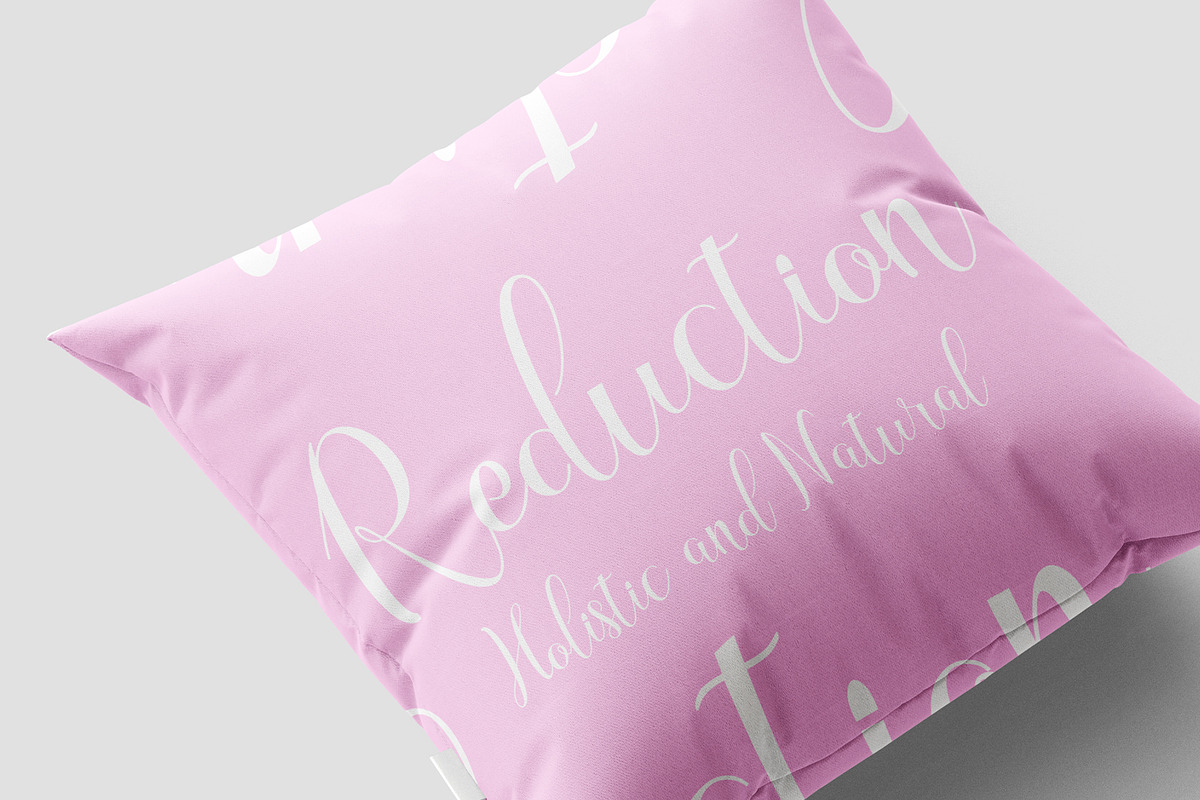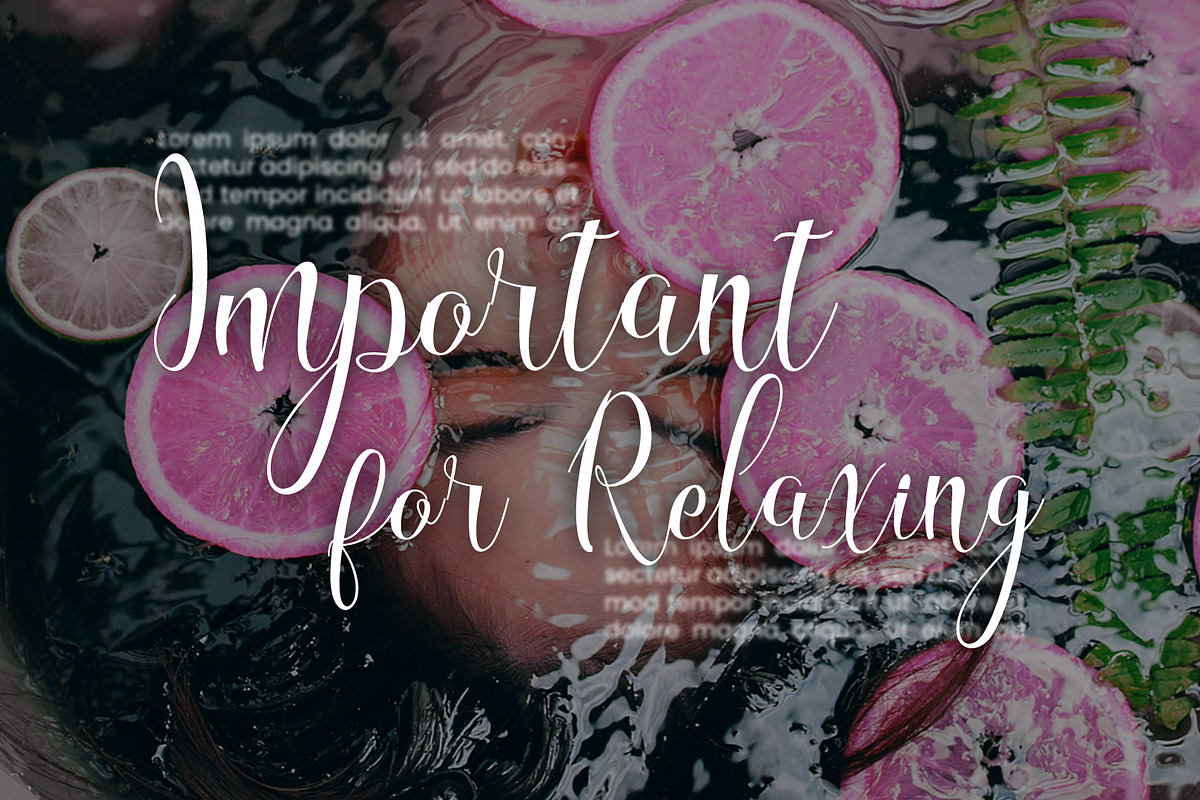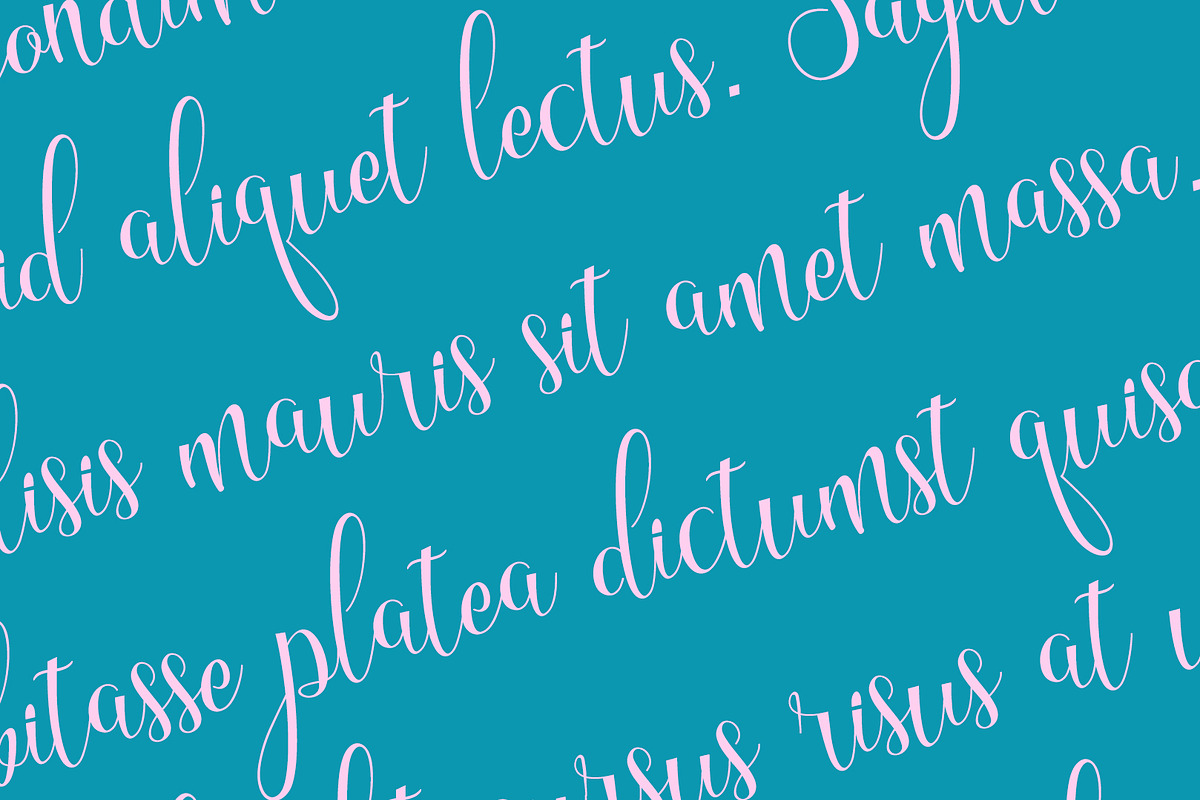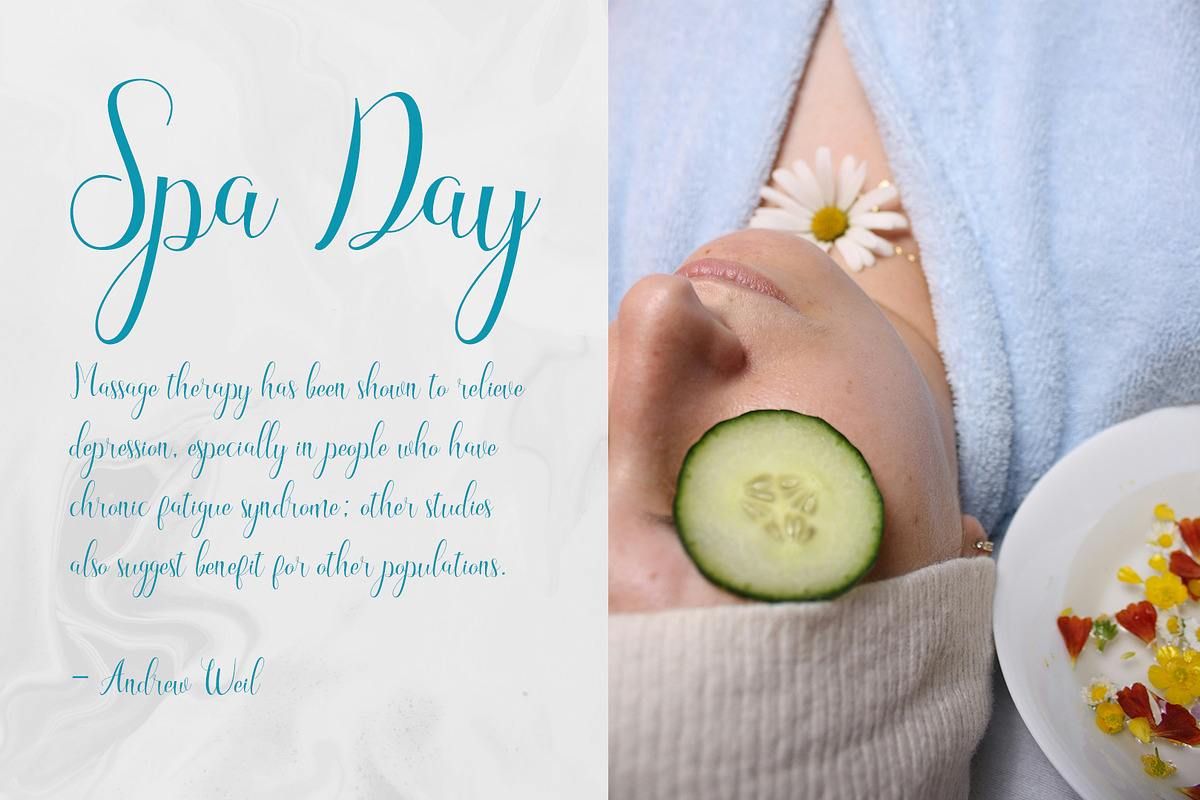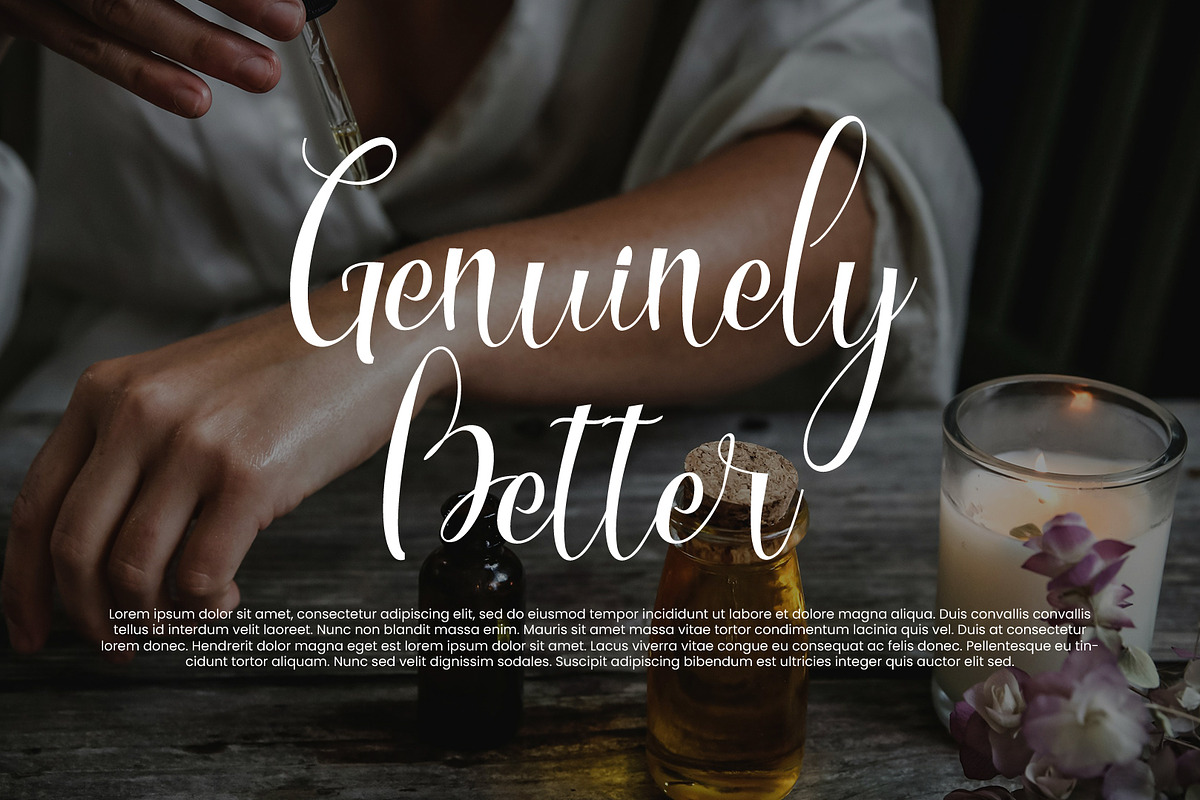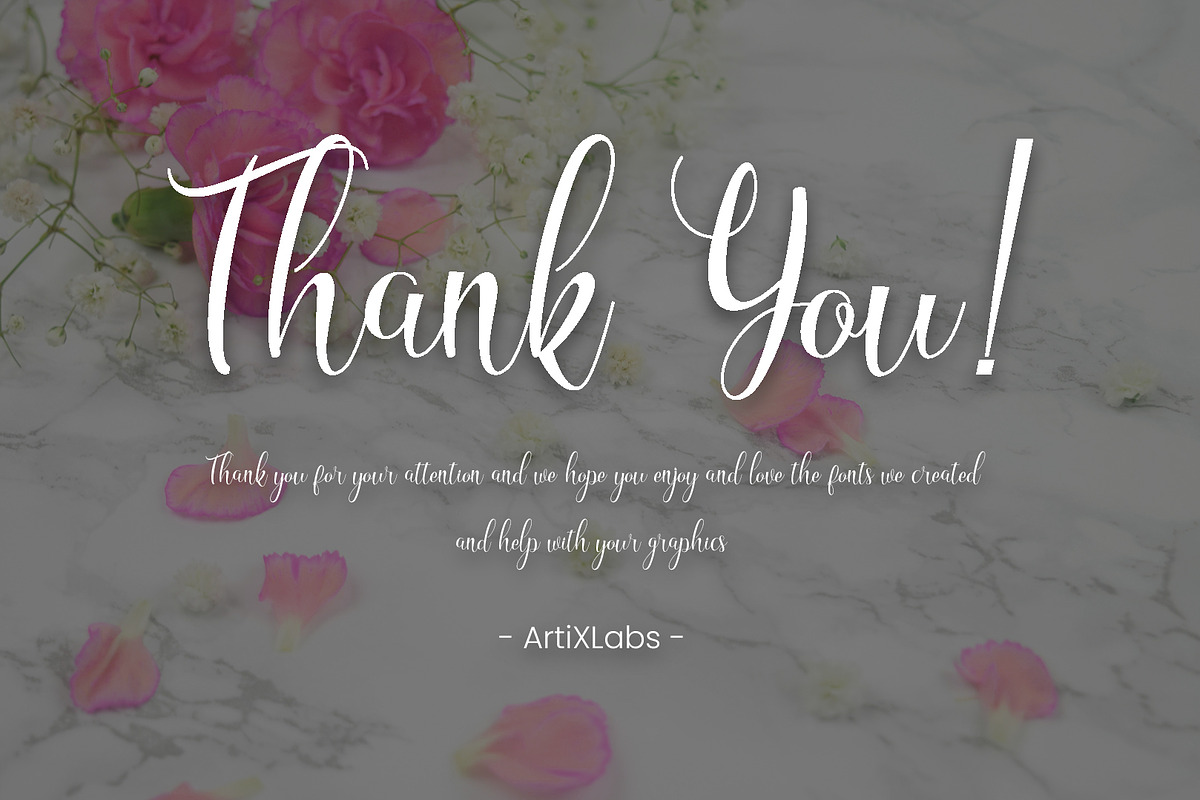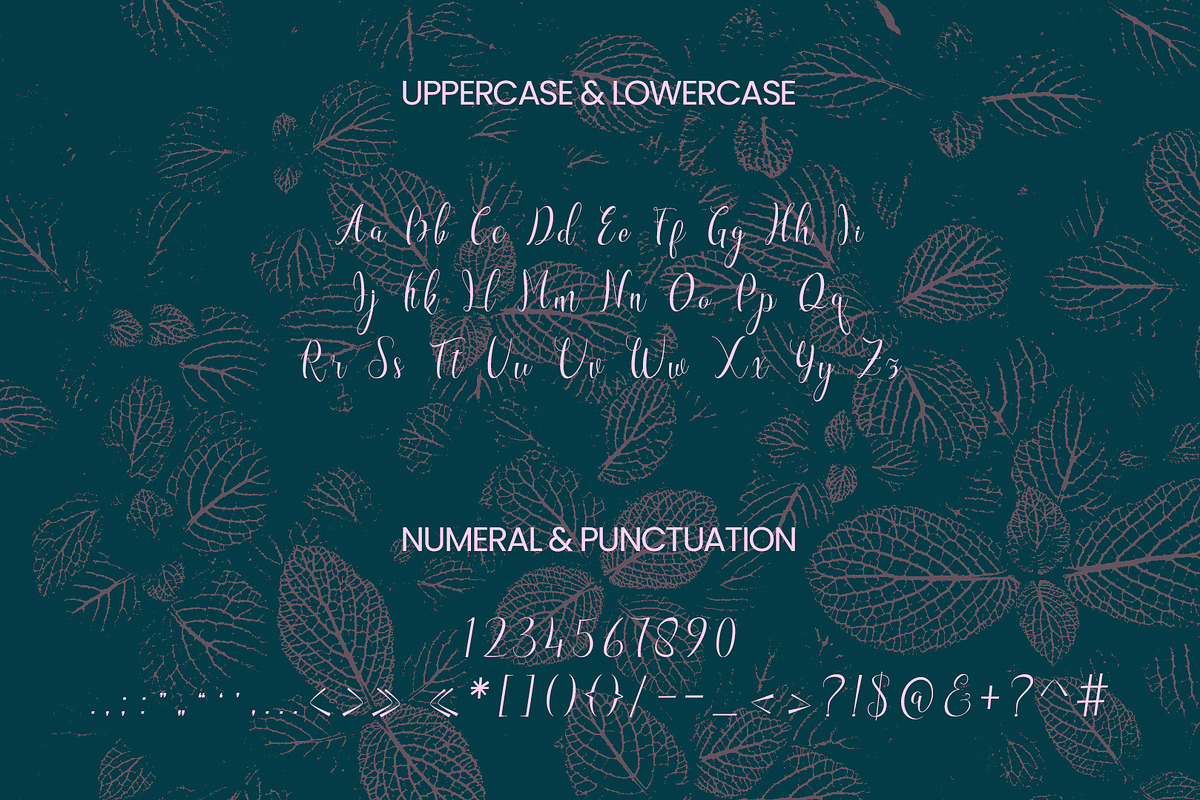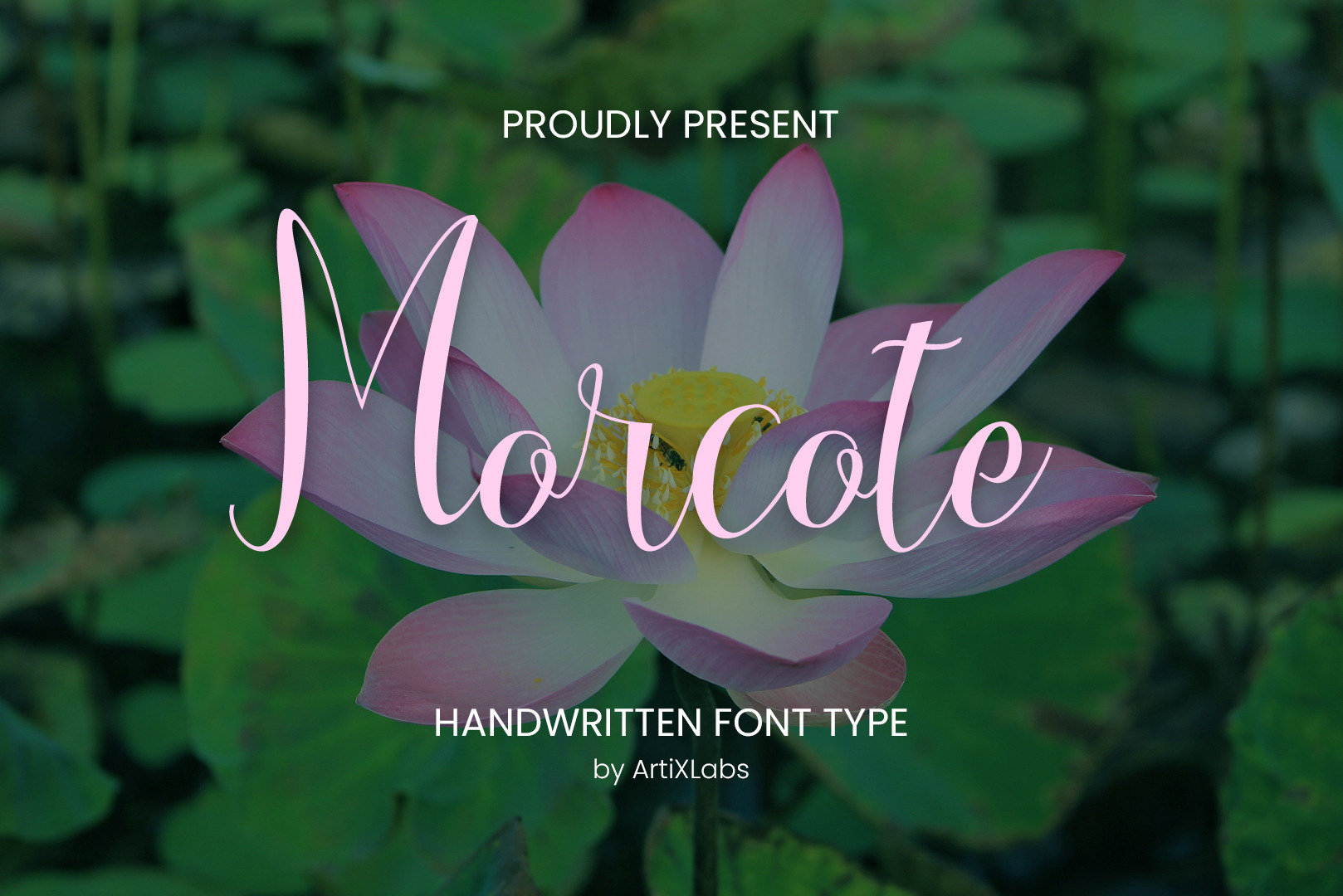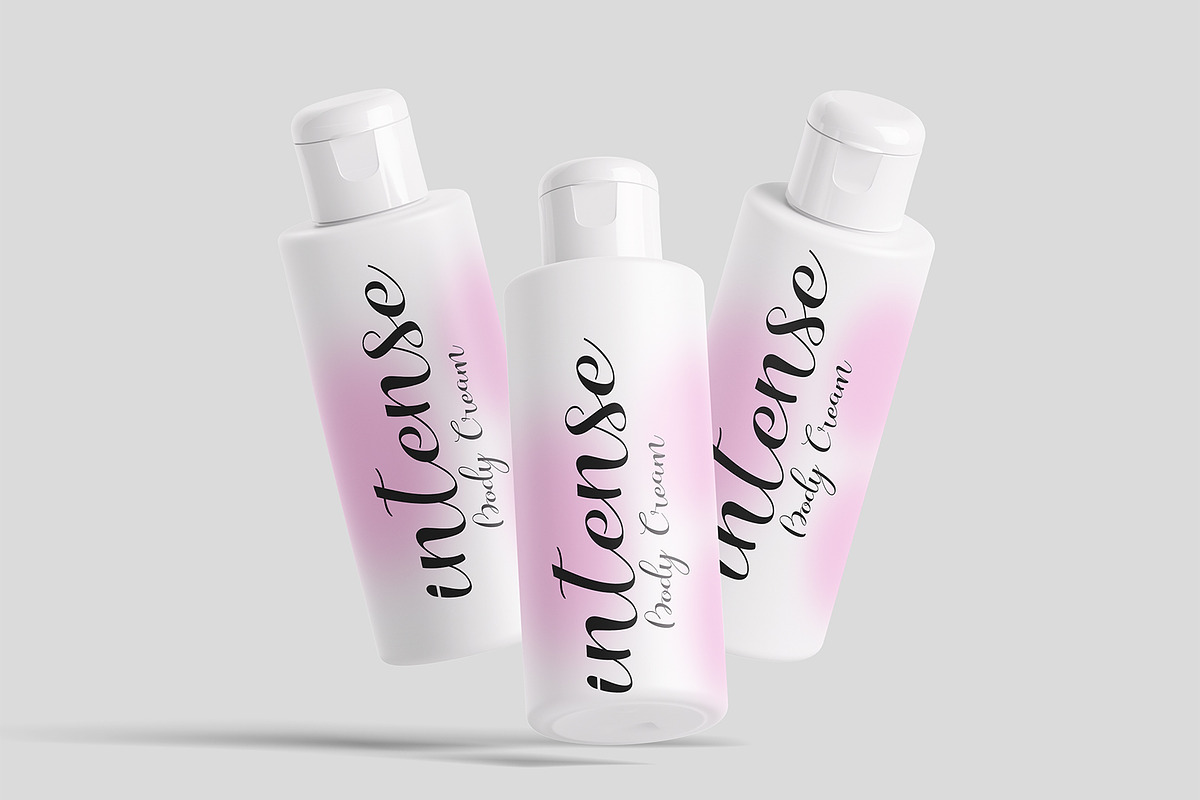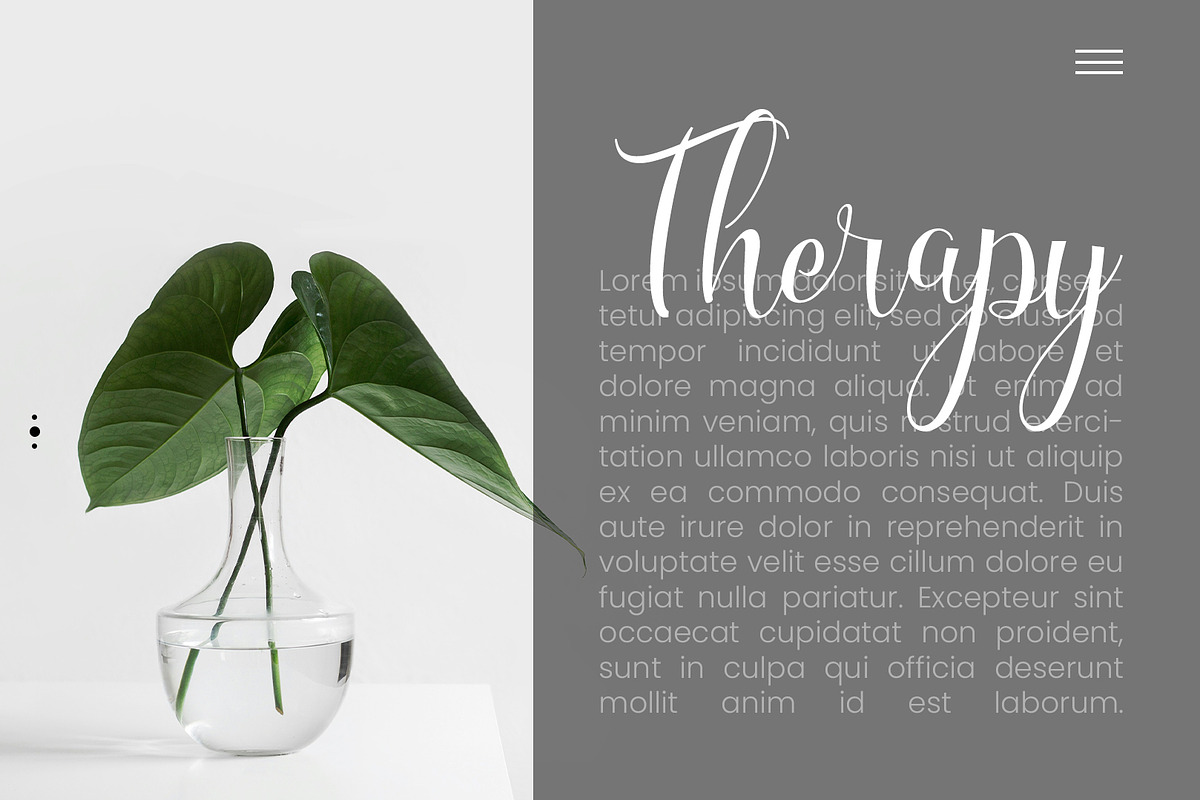
Morcote - Script Handwritten Font
Introducing Morcote - Handwritten Font Flourished Handwritten Script Font for Elegant Designs
Morcote is a stunning flourished handwritten script font that combines elegance with artistic flair. Perfect for wedding invitations, luxury branding, and high-end packaging, this font adds a sophisticated touch to any project. Its intricate flourishes and natural flow make it ideal for creating memorable logos, romantic stationery, and premium product labels. This Font can be used for any variety of purposes, such as: Event, Birthday, Ceremony, Packaging Products, Logo Type, Branding, T-Shirt Design, Website/Blog, Headline Magazine, Brochures and also can be used for other purpose.